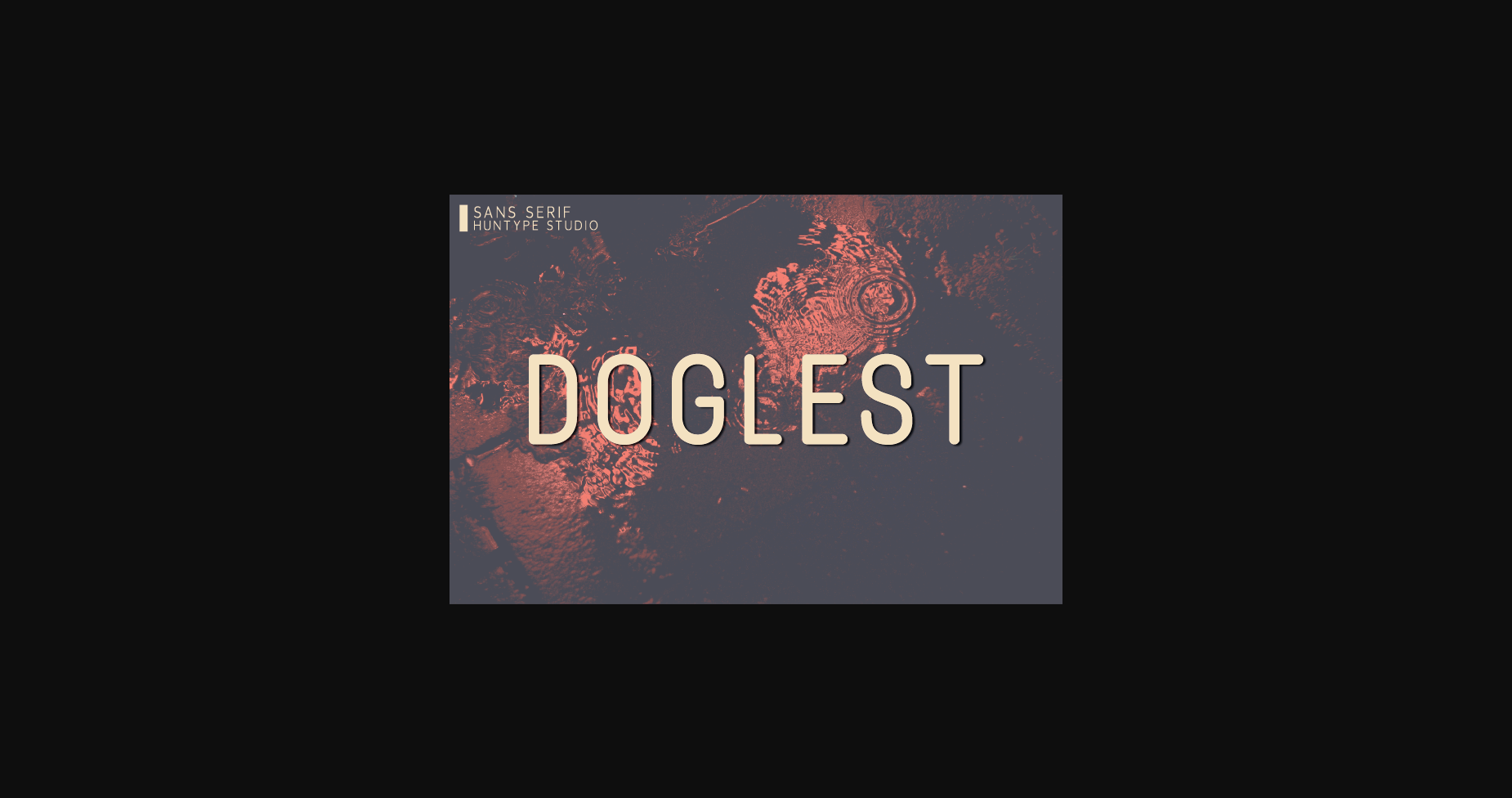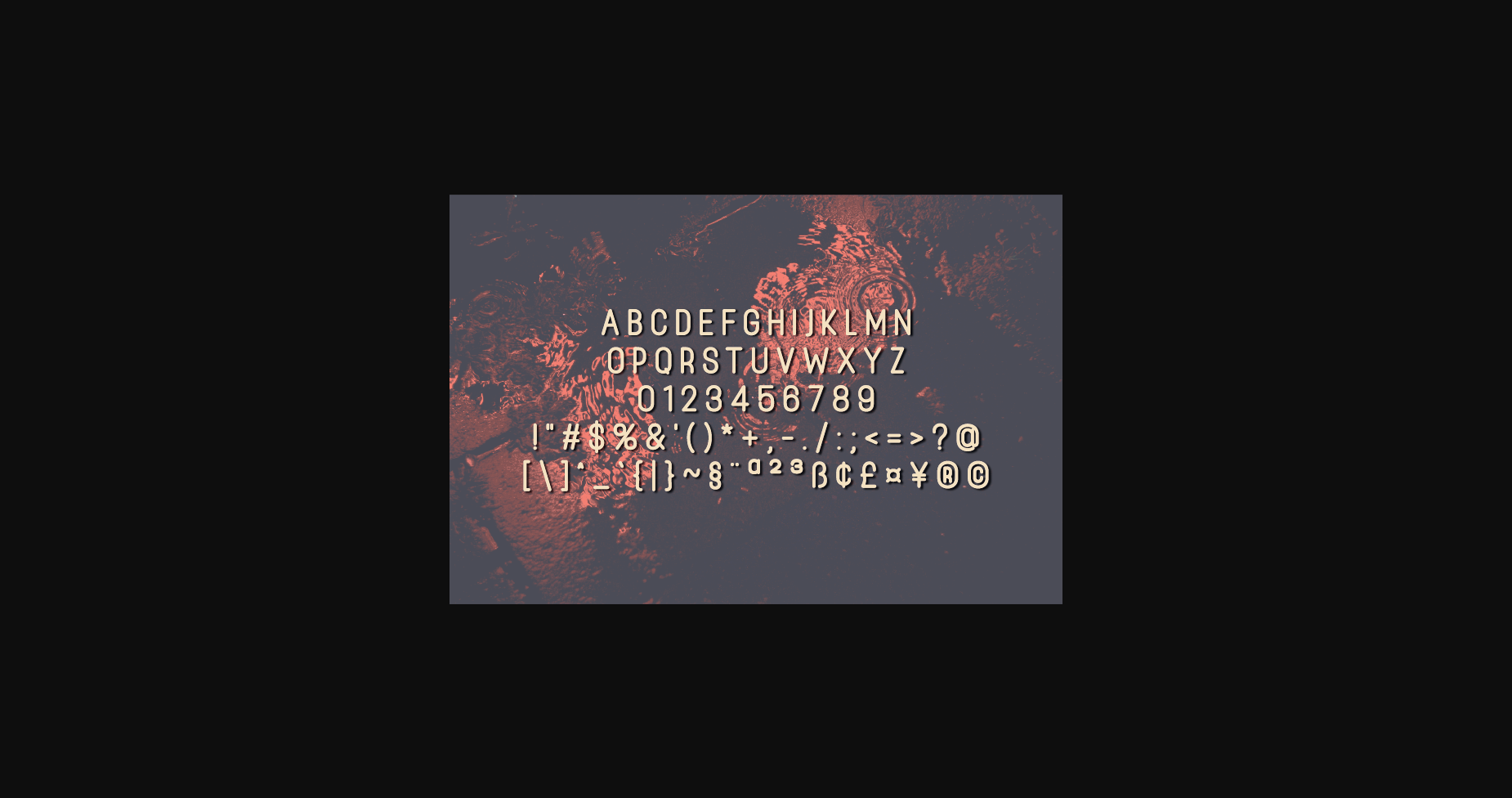
About Doglest Font
Doglest is a minimal and neat sans serif font. It can easily be matched to an incredibly large set of projects, so add it to your creative ideas and notice how it makes them stand out!